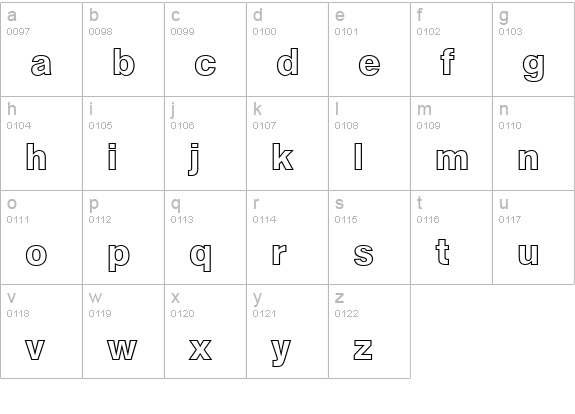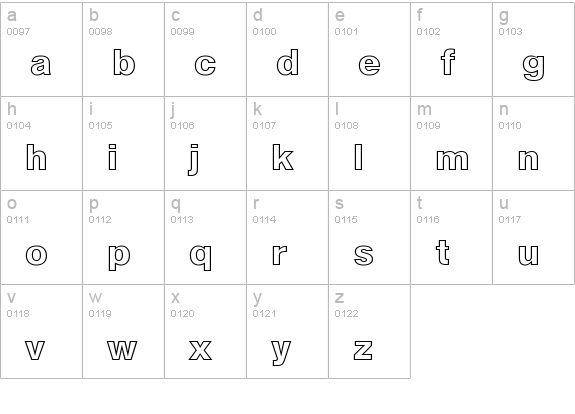
Arezzo-Outline-Bold Font Details
Arezzo-Outline-Bold is a strong, high-contrast variant in the Arezzo typeface family \xE2\x80\x94 well suited to headlines, attention-grabbing titles, and strong calls-to-action.
Arezzo-Outline-Bold is a striking and modern font that demands attention with its bold and clean lines. This font exudes confidence and sophistication, making it ideal for headlines, titles, and other design projects that require a strong visual impact. Arezzo-Outline-Bold is versatile and can be used across various design applications, from branding to advertising to web design. Best of all, Arezzo-Outline-Bold is available for free download at FontsMarket.com. This means that you can easily access this high-quality font without any cost, making it a valuable addition to your font collection. Don't miss out on the opportunity to elevate your designs with the bold and impactful Arezzo-Outline-Bold font - download it for free today!